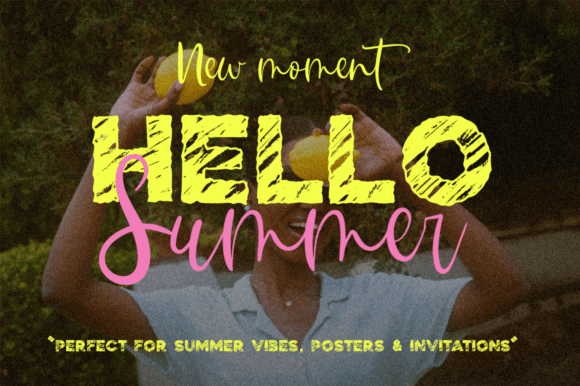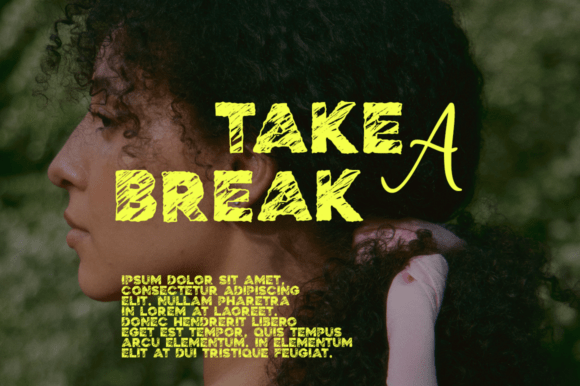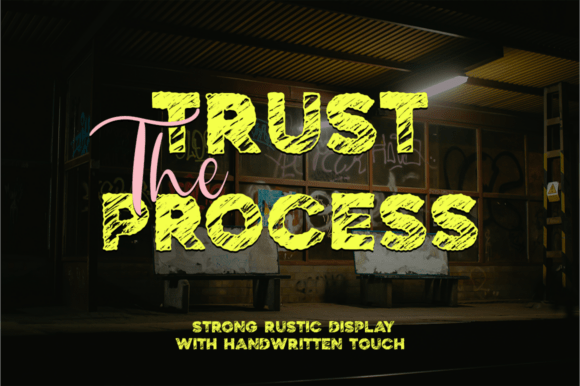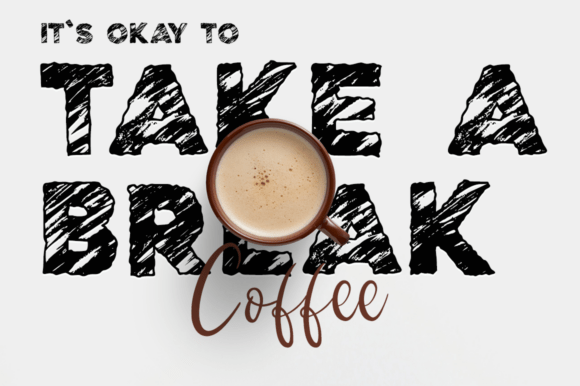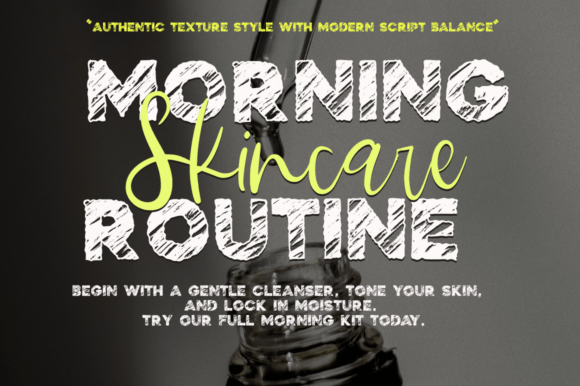
Introduction to Rustic Grace Font
Presenting Rustic Grace- the dynamic duo of font designs.
Rustic Grace demands the spotlight with its bold display, while simultaneously winning over hearts with its polished charm This dual font ensemble is a beautifully orchestrated marriage of strength and refinement.
Key Features of Rustic Grace Font
Why Choose Rustic Grace Font?
Rustic Grace Font offers exceptional quality and versatility, making it a valuable addition to your design toolkit. Whether you’re creating for personal projects or commercial use, Rustic Grace Font delivers professional results.